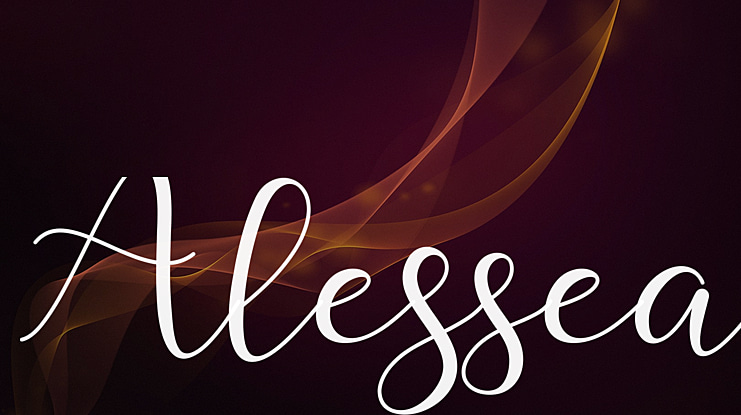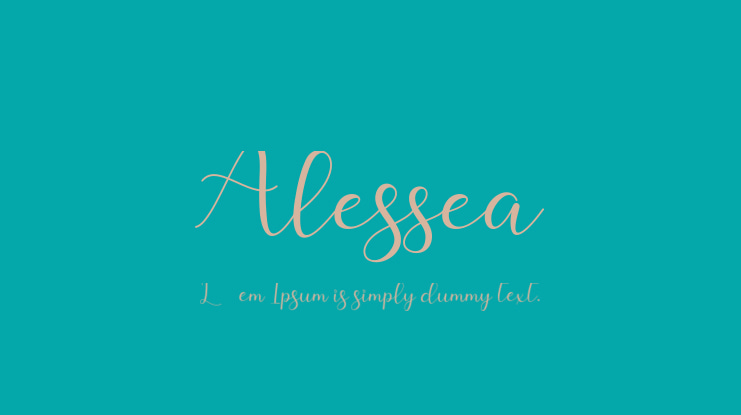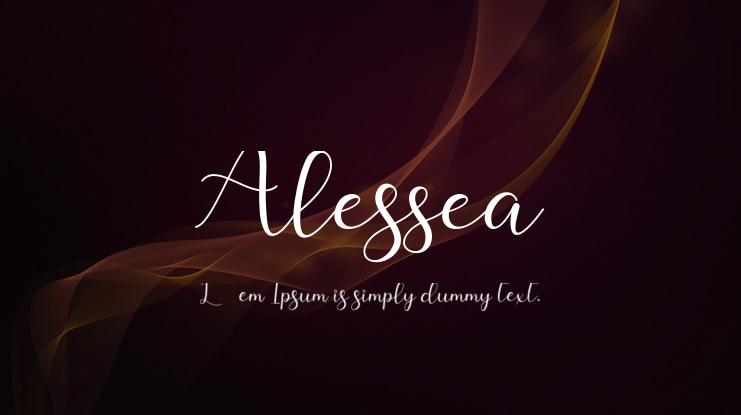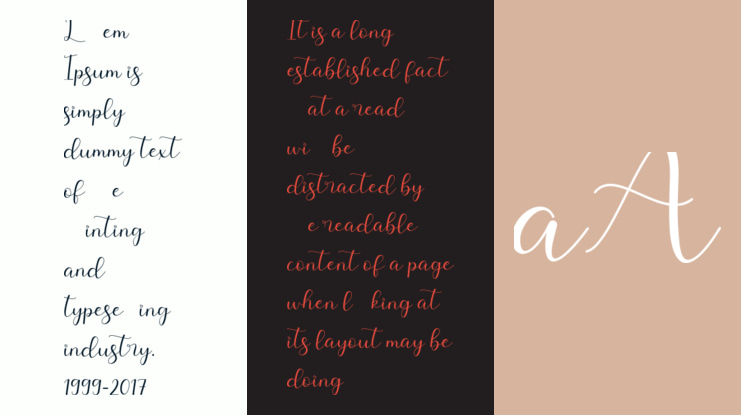
Alessea Font
Alessea is a romantic and sweet calligraphy typeface with characters that dance along the baseline. It has a casual, and yet elegant touch. This font will be ideal for writing wedding invitations, cards, or any other design that may need a romantic, personalized touch!